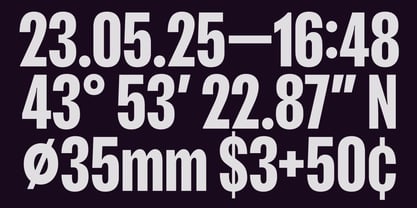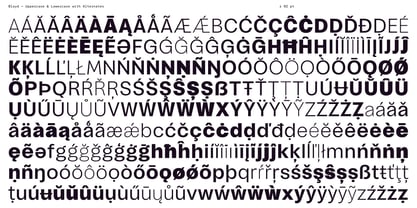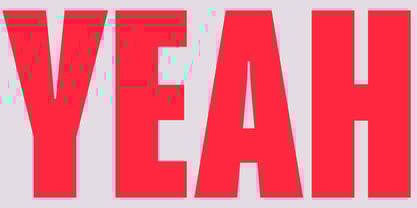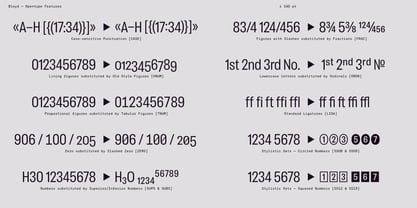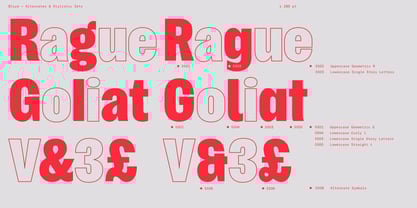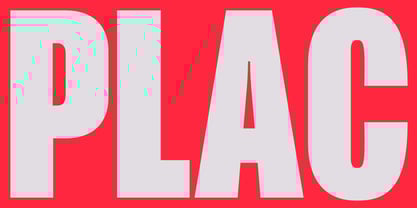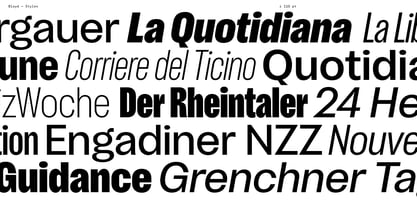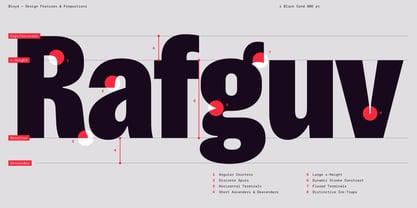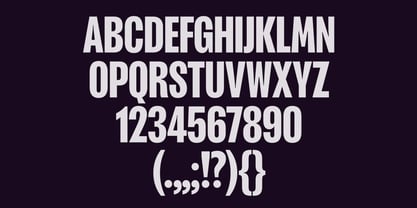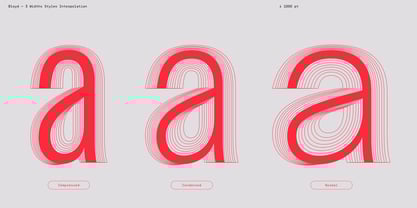
Bloyd
The Bloyd Font Family was designed by Alex Rütten, Olivia Wood and published by Blaze Type. Bloyd contains 48 styles and family package options.
Bloyd is a catchy grotesque font family with a distinct appearance, designed for use in headlines and body text. The design takes its cue from Monotypes poster typeface »Placard«, published in 1937. Like the origin design, Bloyd plays on a blend of poster typeface characteristics and geometric influences of the era, yet is infused with the manual spirit of hand-carved letters.
Letters have tapered strokes with dynamic curves, terminals subtly flare out and it has a lot of unexpected details, giving it a relaxed and quirky character. Squared inner counters provide a fine contrast to warmer outer curves, supported by a discrete play in stroke widths. With a large x-height and short ascenders & descenders, Bloyd’s narrow subfamilies can be packed tightly to produce forceful headlines. The normal width styles offers generous proportions, creating good readability for longer texts. The design balances on the fine line between ratio and emotion – it appears loud and emphatic in the heavy weights and compressed widths, and more calm and rational in the light and normal styes.
Bloyd is available in Roman and Italic, with three widths from Normal to Compressed and a range of eight weights from Extra-Light to Black, each with a corresponding italic at a moderately steep 10° angle. The typeface spans 876 glyphs and 48 styles, and is offered as a VAR Font. Each font includes a large multilingual character set, accompanied by symbols, a set of arrows, and an array of Open Type features and stylistic alternates offering a lot of playful variety.